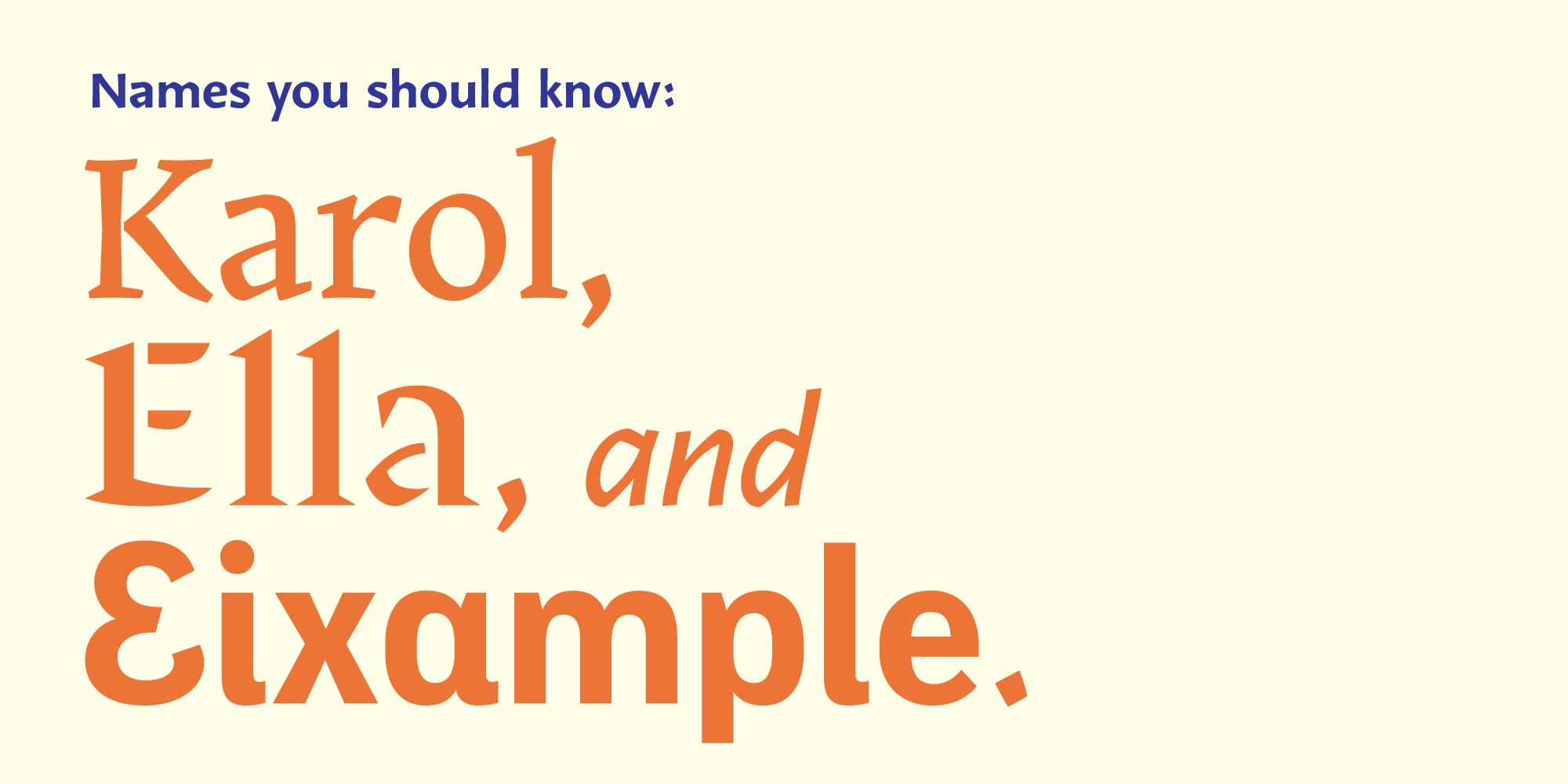
Type-Ø-Tones’ new additions to the Type Network library absolutely embody Jan Middendorp’s characterization of their type as “simultaneously adventurous and serious, witty and well-conceived.” Laura Mesegeur’s Ella, a stencil series, takes its typographic approach from the principles of calligraphy. Karol and Karol Sans, by Daniel Sabino, are a pair of humanist faces inspired by the work of Eastern European type designers. Sabina Chipară’s and José Manuel Urós’s Eixample families, Dip, Glaces, and Villa, turn modernist signs from Barcelona into versatile digital type.
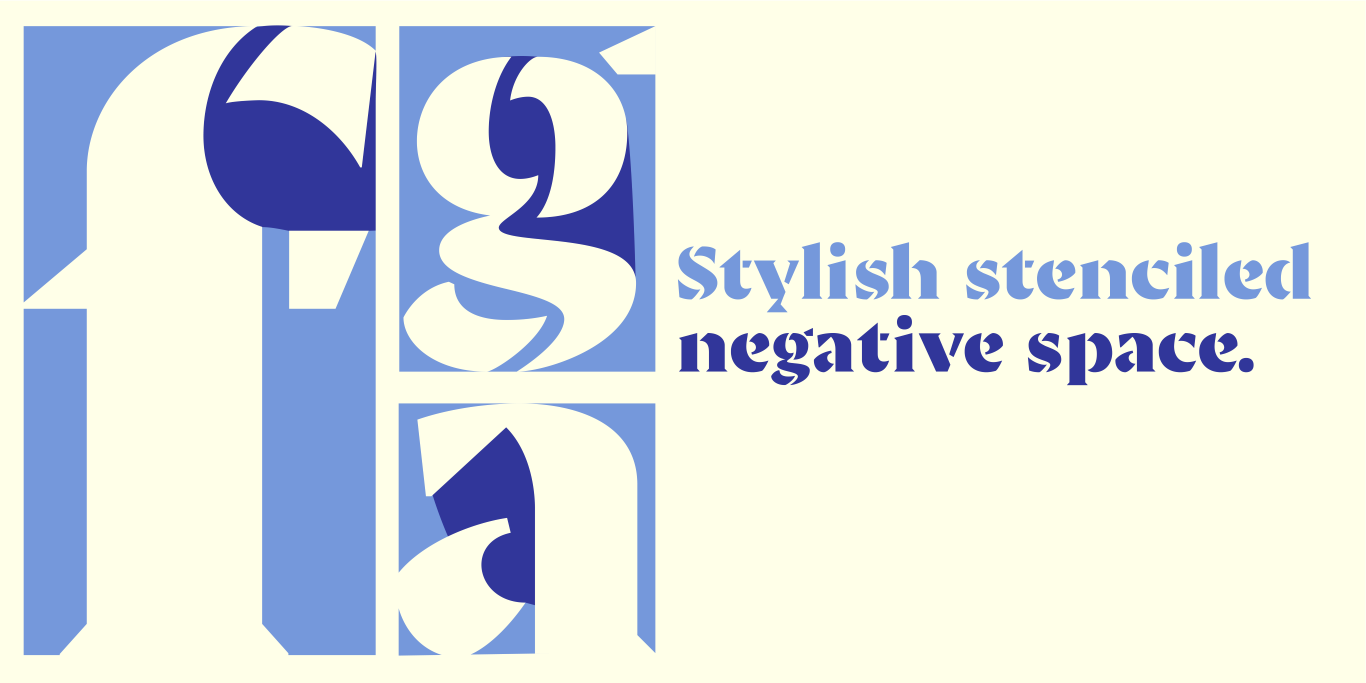
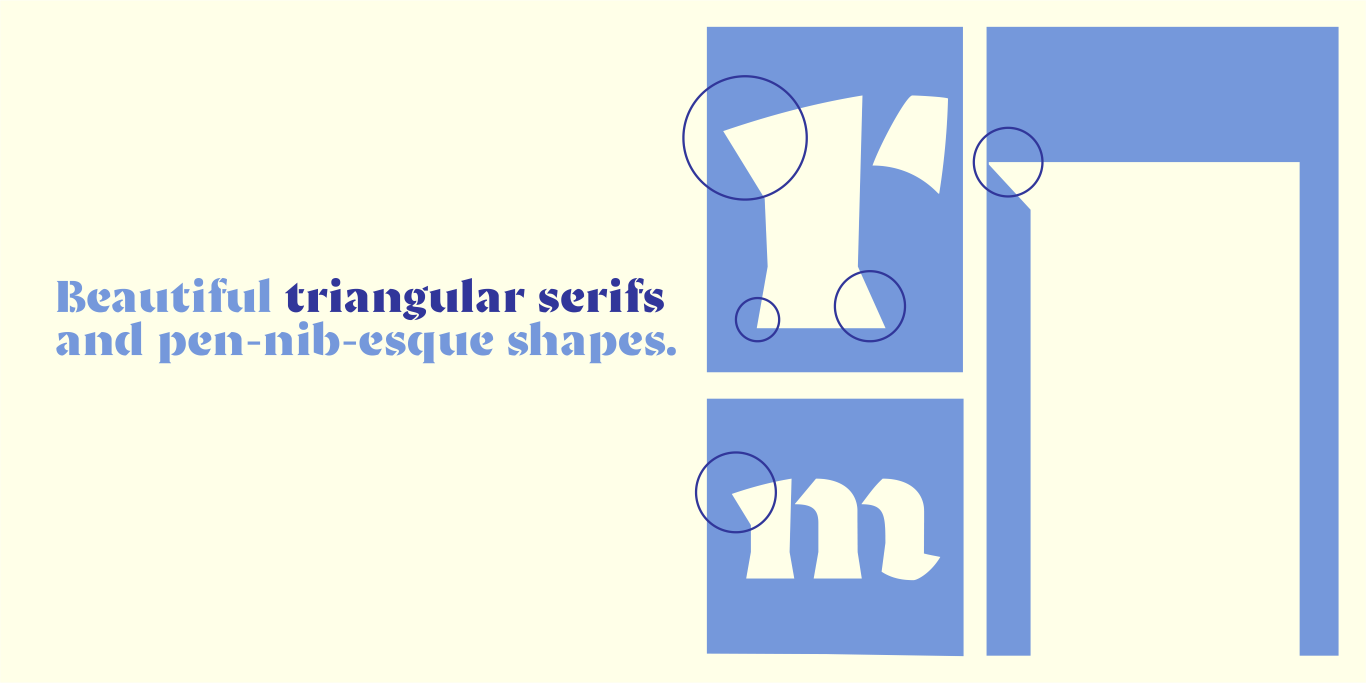
Mesegeur chose to marry the connected negative spaces of stencil type with the pen-derived terminals and serifs of calligraphy.
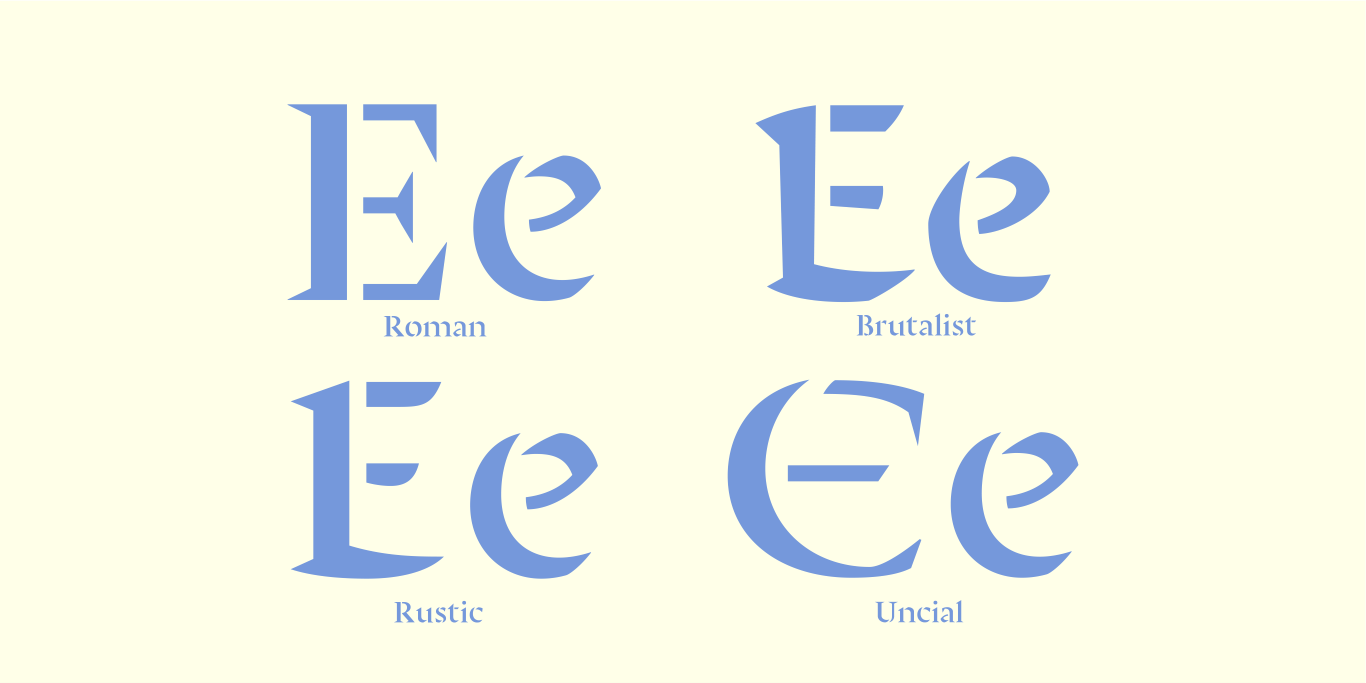
Tracking the history of the Latin alphabet, Ella offers designers options for each era, allowing them to match their type to their content without searching for another new font.
Ella began as a morphological design study: Laura Mesegeur wanted to discover how classic calligraphy models could be adapted to and perform as contemporary, digital, stencil typefaces. Starting at the Hoffmitz Milken Center for Typography’s “Typographers-in-Residence 2021: Mujeres Hispanas y Tipografía”, Mesegeur took the calligraphy models of Oriol Miró (themselves based on historical models) as her origin, pushing them to their typographic limits.
Stencil type is defined by the channel of negative space between each part of each letter, allowing it to be cut into material without the counters falling out. Laura synthesized this approach with calligraphy by first determining the minimum number of letterform parts required without losing the strokes’ calligraphic qualities. These calligraphic origins can be seen in Ella’s triangular serifs and pen-nib-esque shapes. The resulting letterforms exude the warmth of handwriting.
Ella consists of four families: Roman, Uncial, Rustic, and Brutalist, each in two styles: Regular and Bold. These families have different capital styles, which mirror the historical evolution of the Roman script, yet they share a single lowercase set that unifies their distinct characteristics.
The Ella series was designed for posters, book covers, and even brand identities. Wherever personality, expressionism, and sophisticated brutalism are needed, use Ella.
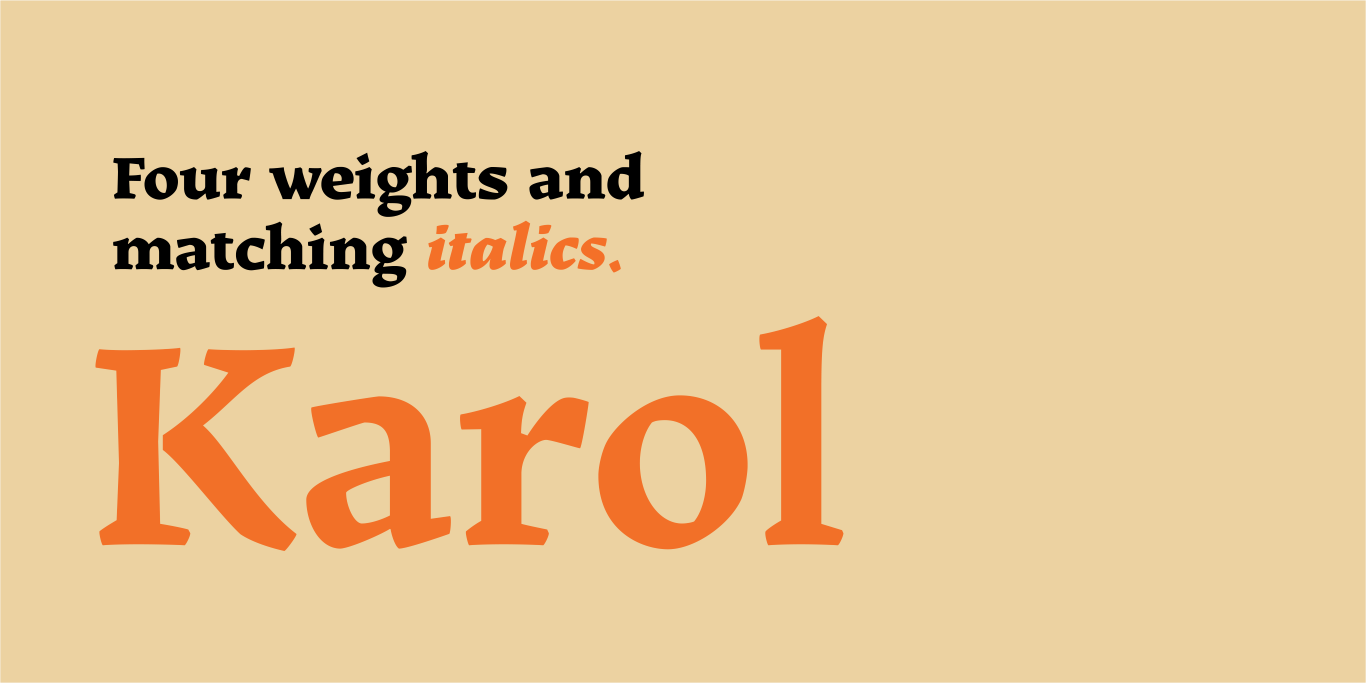
Sabino’s Karol started as a school project, became a TDC award-winner, and is now refined and released on Type Network.
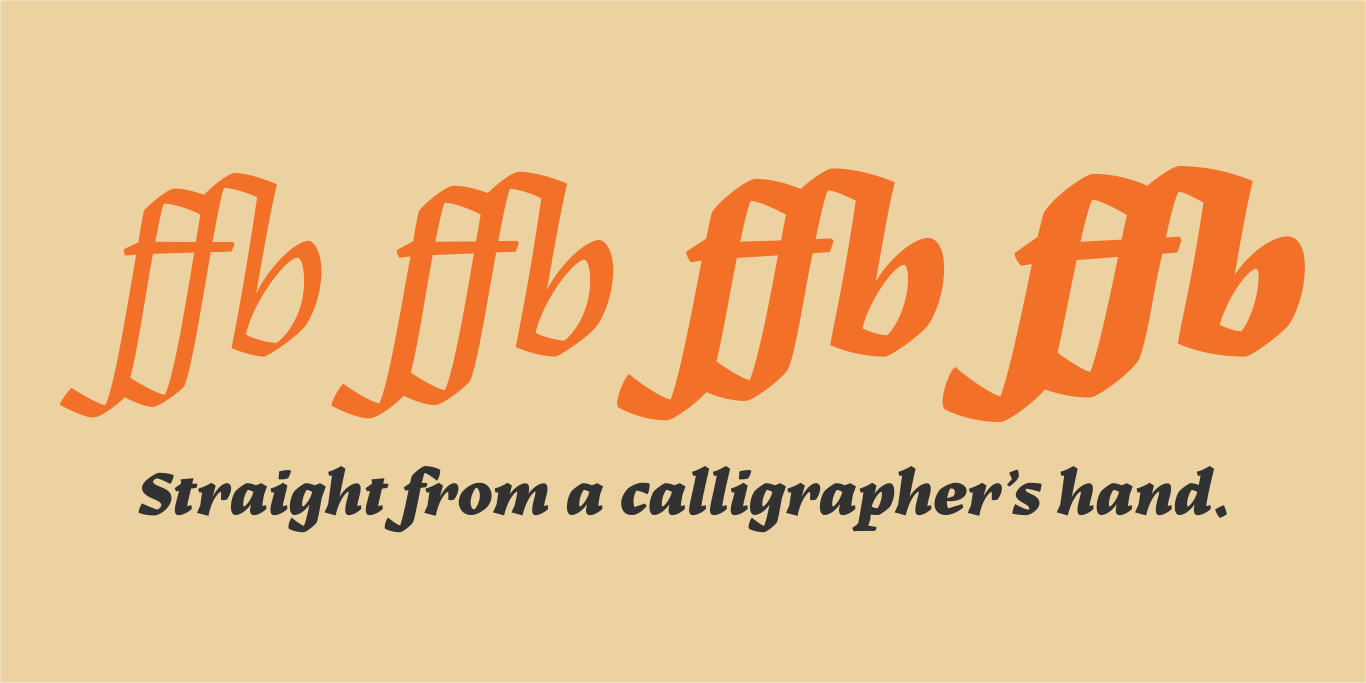
Like Ella, Karol proves its value in the quality of its strokes. Despite appearing on digital screens, one could imagine its structures flowing from an expert calligrapher’s hand. Daniel Sabino first designed Karol in 2011 as a school project while obtaining his MA in Advanced Typography from EINA/UAB, in Barcelona, Spain.
Drawing inspiration from Eastern European type designers such as Oldřich Menhart, Karol’s eight styles (four weights and matching italics) feature high readability, strength, and personality; so much so that Karol was awarded the Certificate of Typographic Excellence (Judges’ Choice) from the Type Directors Club in 2012.
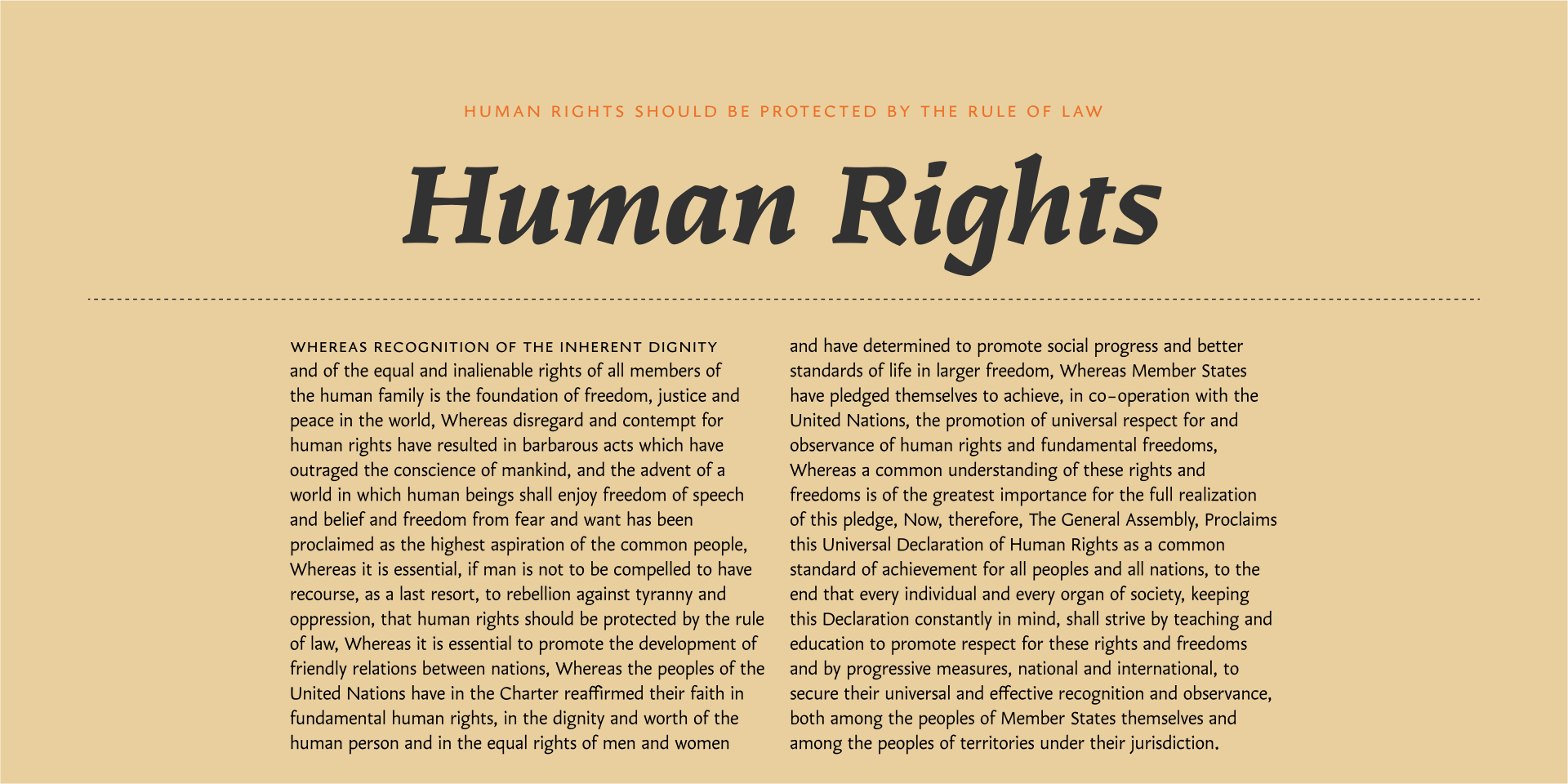
When designing Karol Sans, Sabino avoided the typical method of simply knocking-off the serifs. Instead, he designed it from scratch as a pairing, not simply a derivative.
Inspired by wood engraving and the work of calligraphy masters like Menhart and Rudolph Koch, Karol Sans is a non-literal sans-translation of Karol. Taking the hand-drawn feel of Karol and further refining it, Karol Sans possesses its own humanist personality. It also offers a wider range of weights, including two display weights—Light and Black—and all the most desirable OpenType features. Karol Sans functions well from text to display sizes and makes a natural companion to Karol.
One could easily use Ella, Karol, and Karol Sans together in a single project. Are you designing, say, an informational website that would benefit from a richly historical font palette? Look no further than these faces from Type-Ø-Tones.
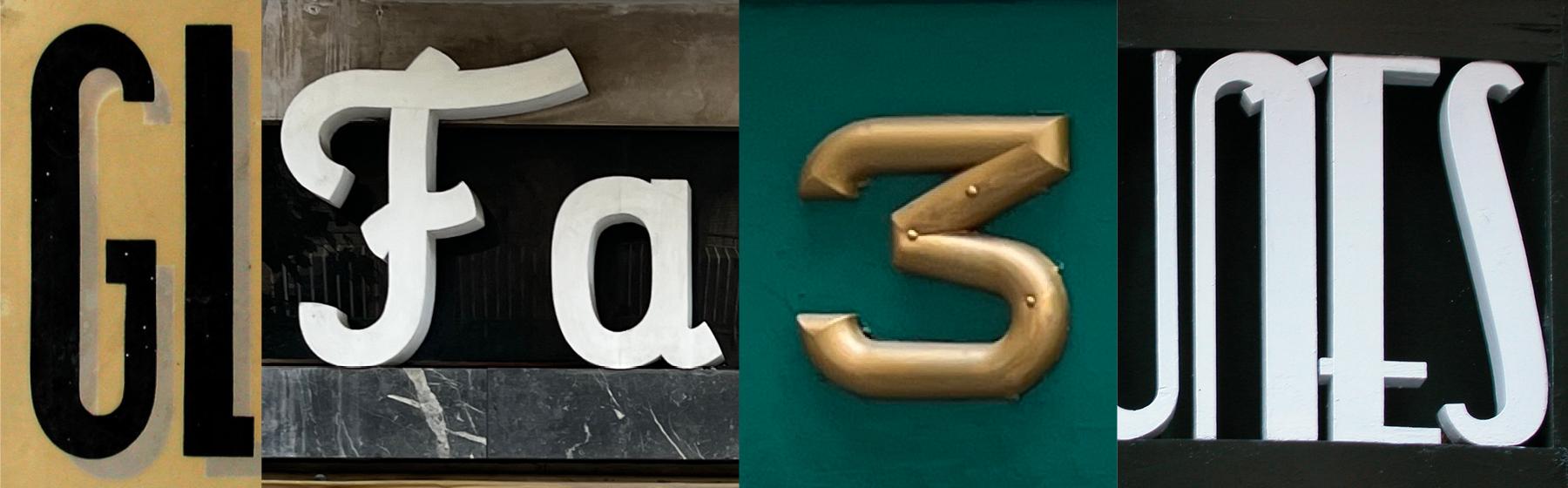
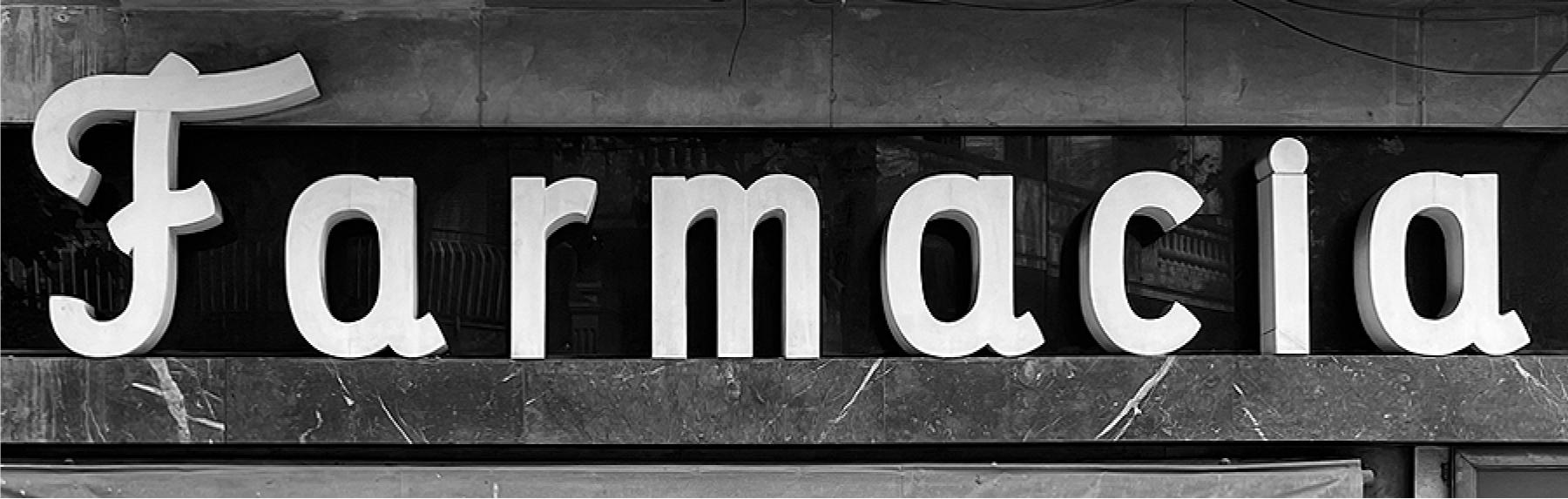
Eixample Dip gets its name from Carrer Diputació (Diputació Street), where the original sign reads Farmacia Específicos Diputación. This pharmacy sign contains sans-serif lowercase letters coexisting with a script uppercase, a curious model that Chipară and Urós used to develop Eixample Dip.
Dip’s capitals are built with contained decoration to achieve maximum compatibility between letters. The script capitals are the default uppercase, but an alternate slab style is included as OpenType glyphs. Narrow and Inline styles round out this versatile subfamily.
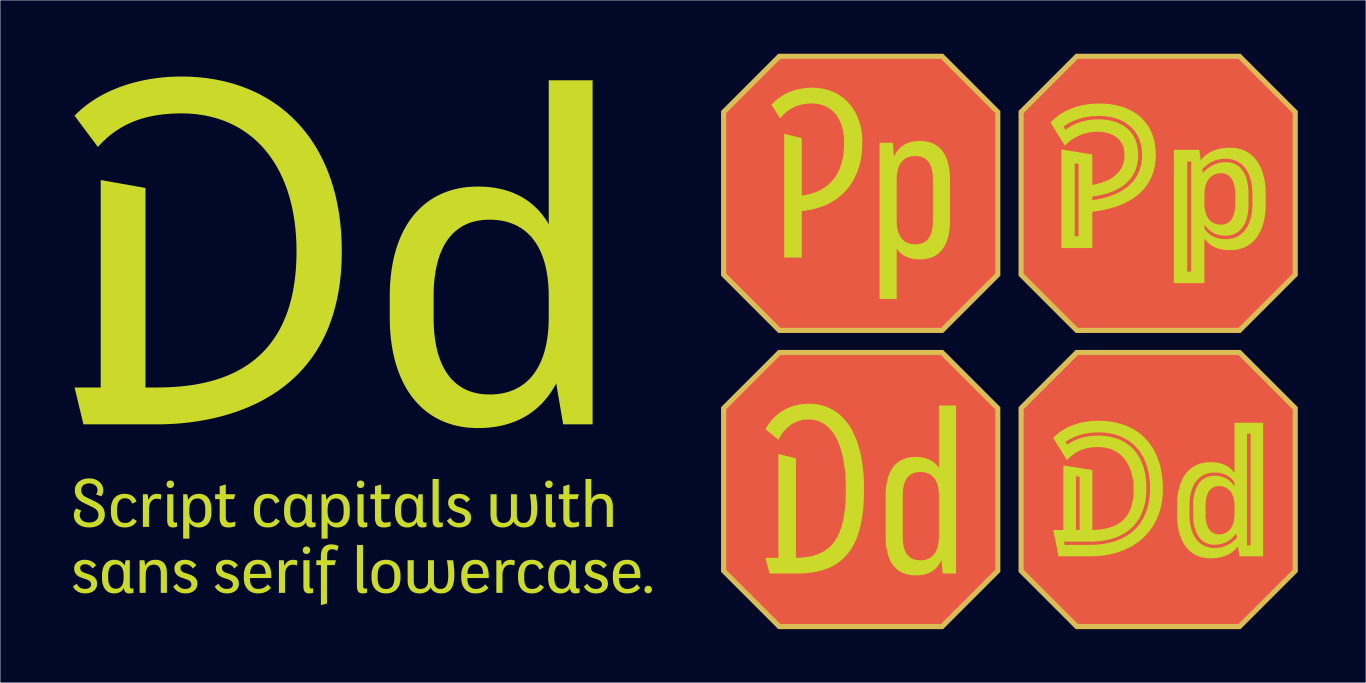
In 2003, Chipară and Urós photographed a sign with the word GLACES painted on a refrigerator. Just a few meters away is the eye-catching sign for Lampistería y Electricidad Espuñes, a lighting store that uses similar lettering. These signs prompted a years-long speculation between them on how to manage the concept of double vertical modulation.